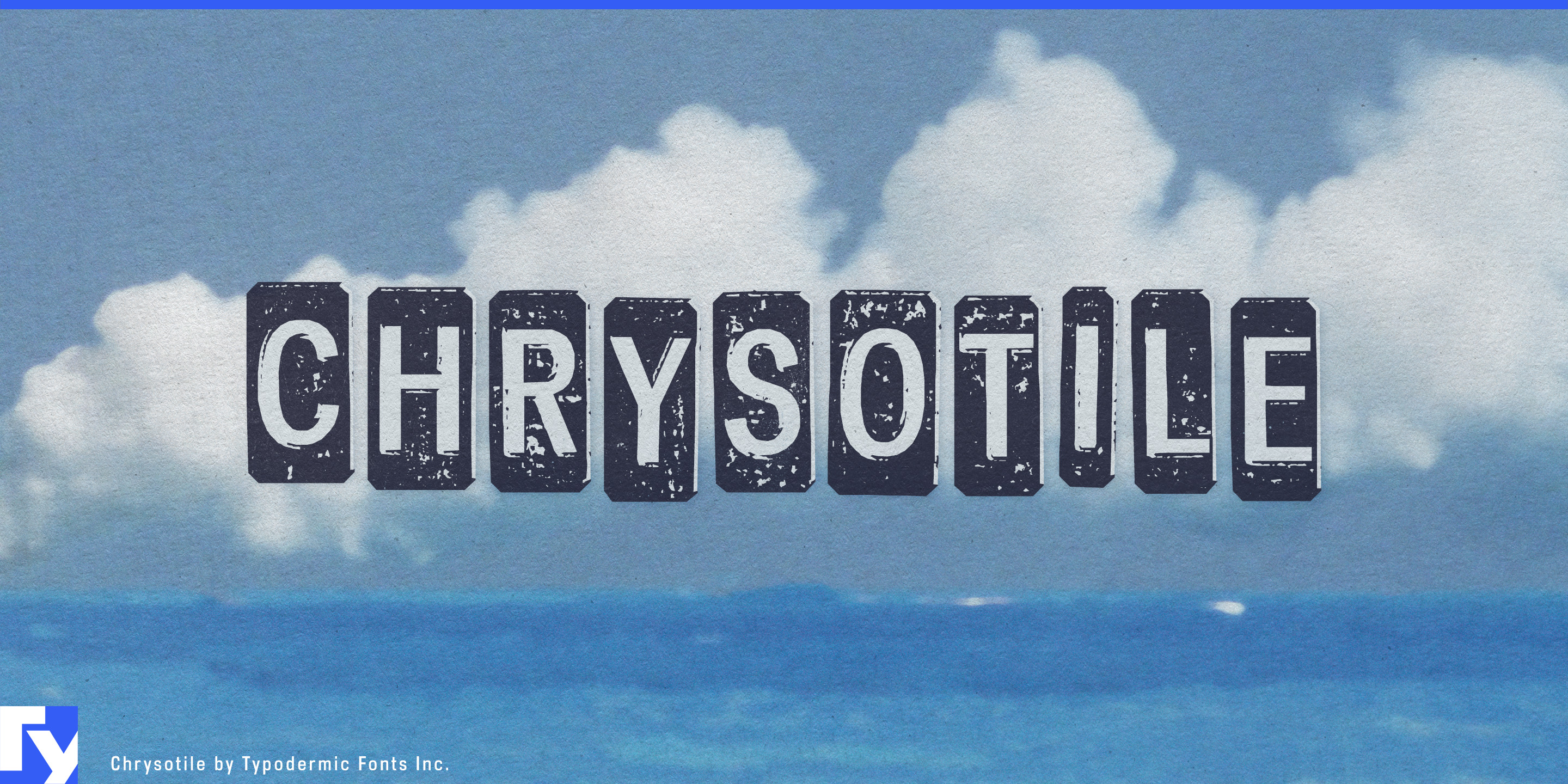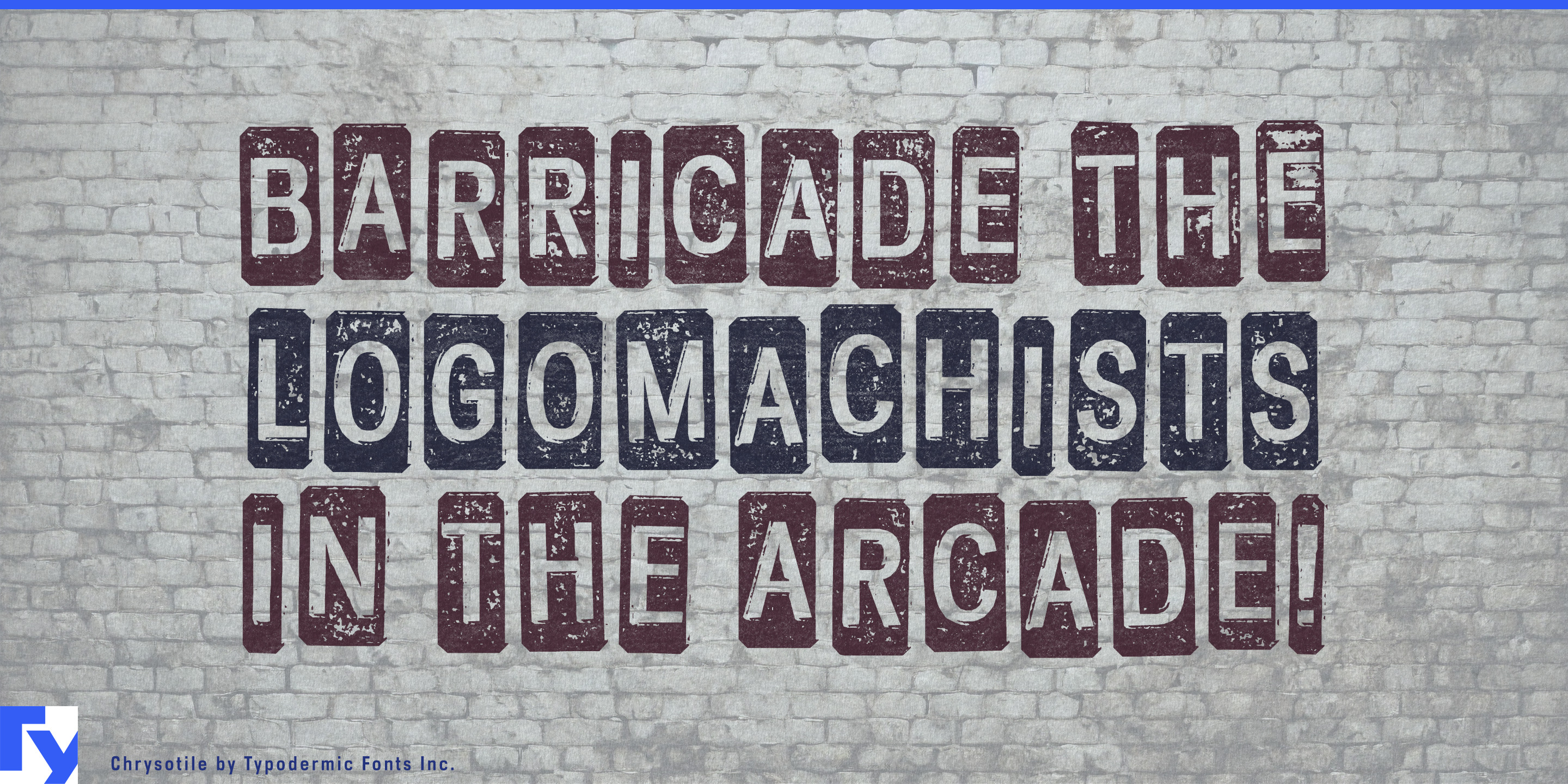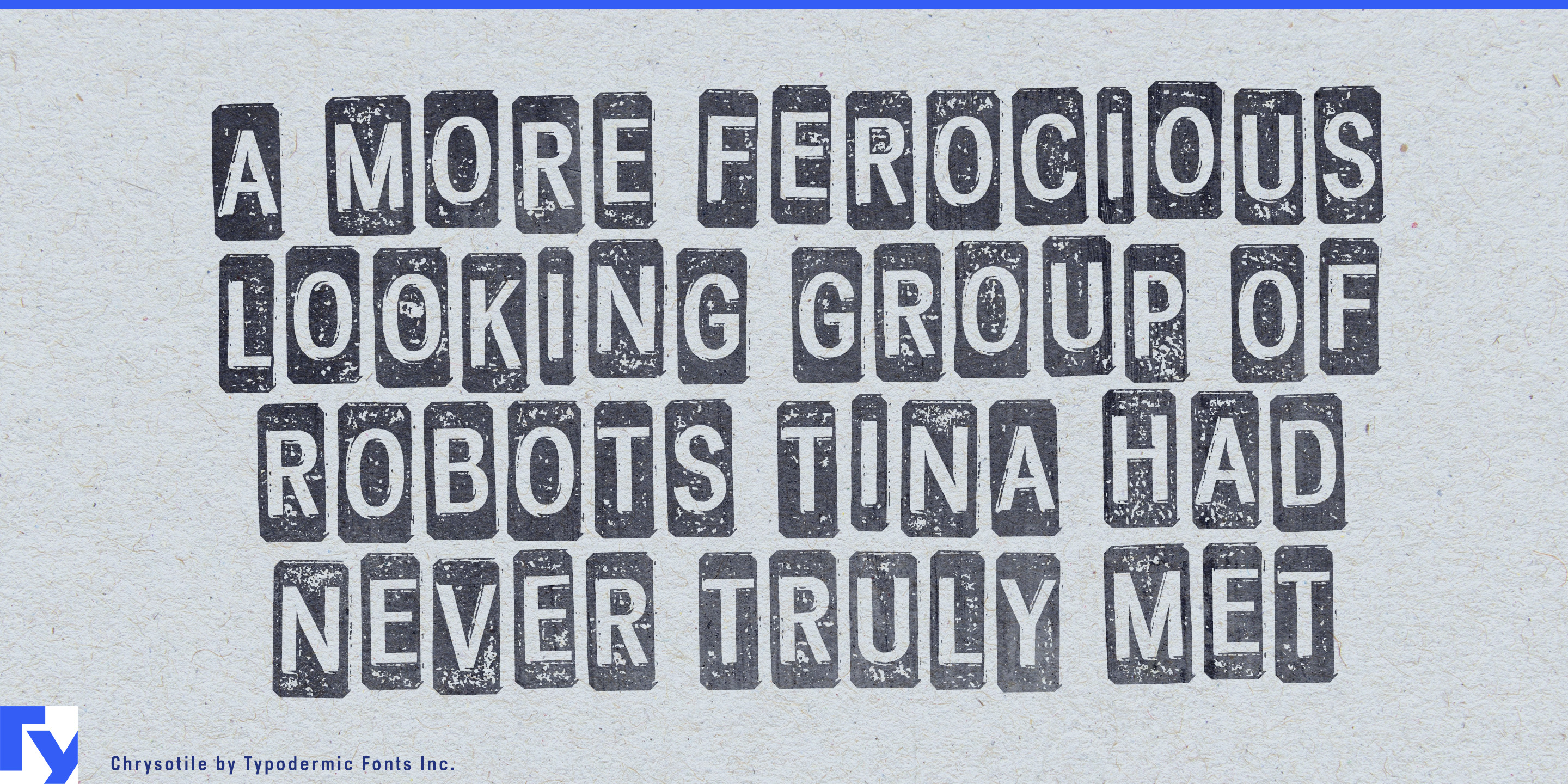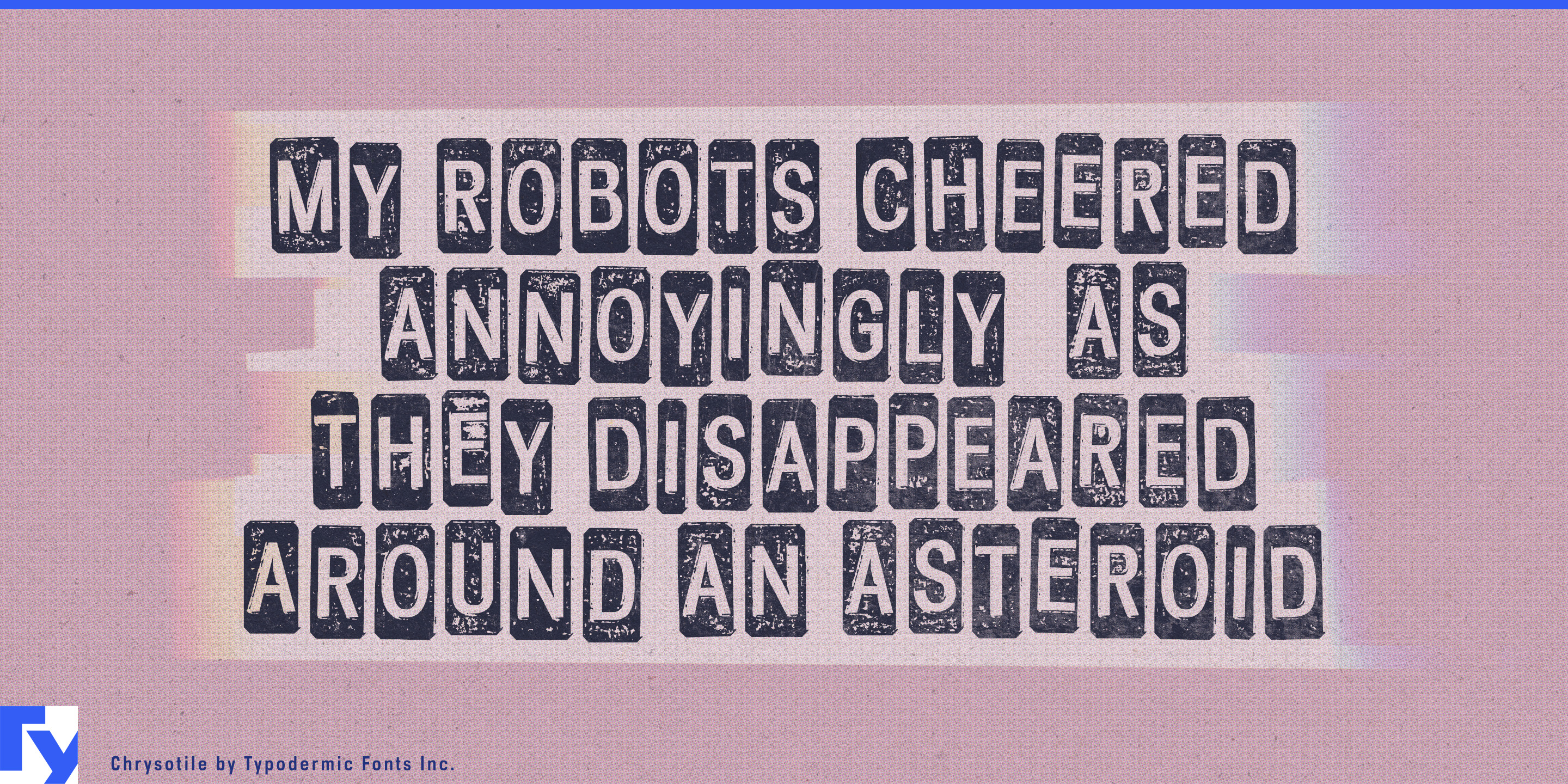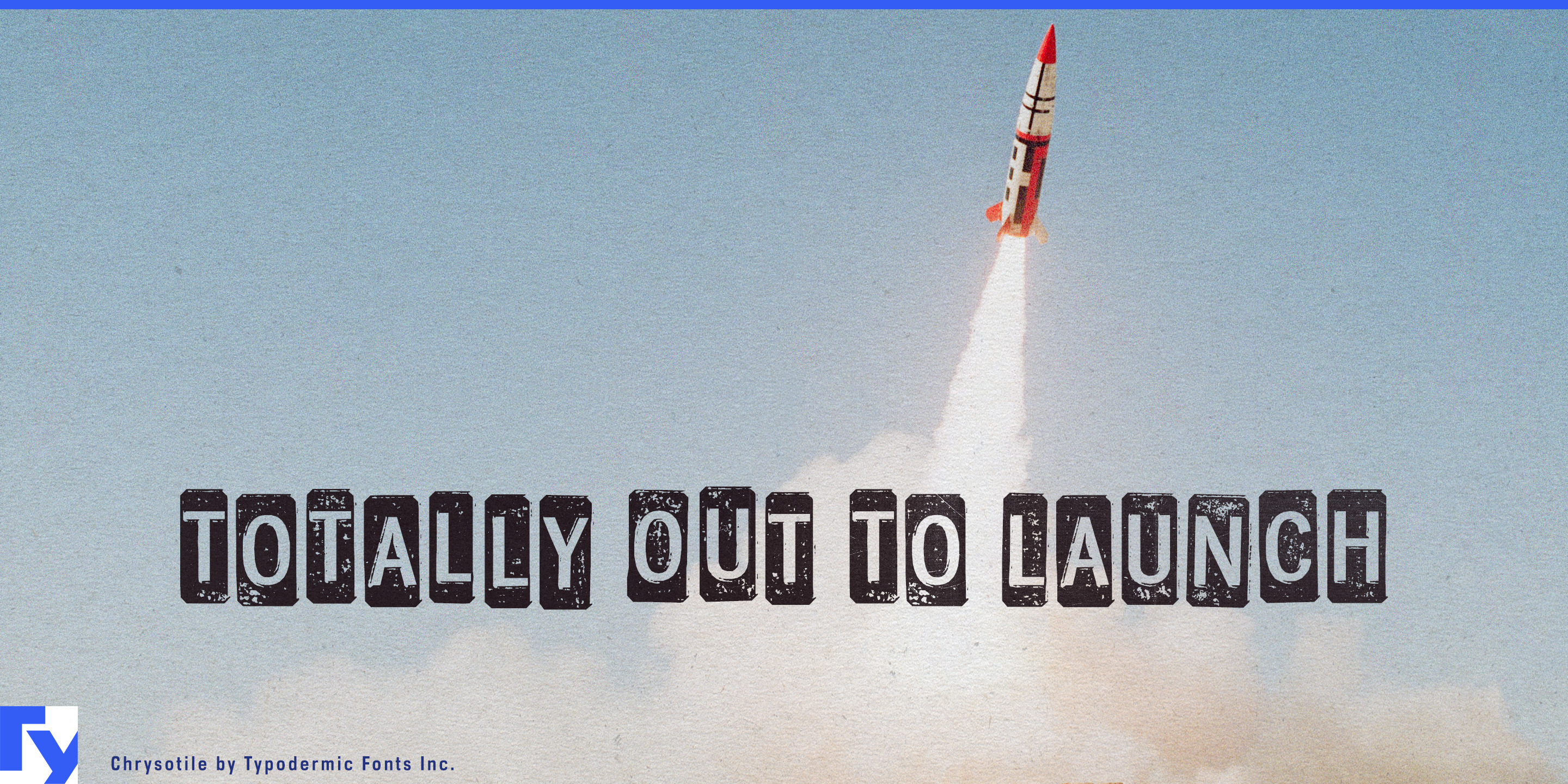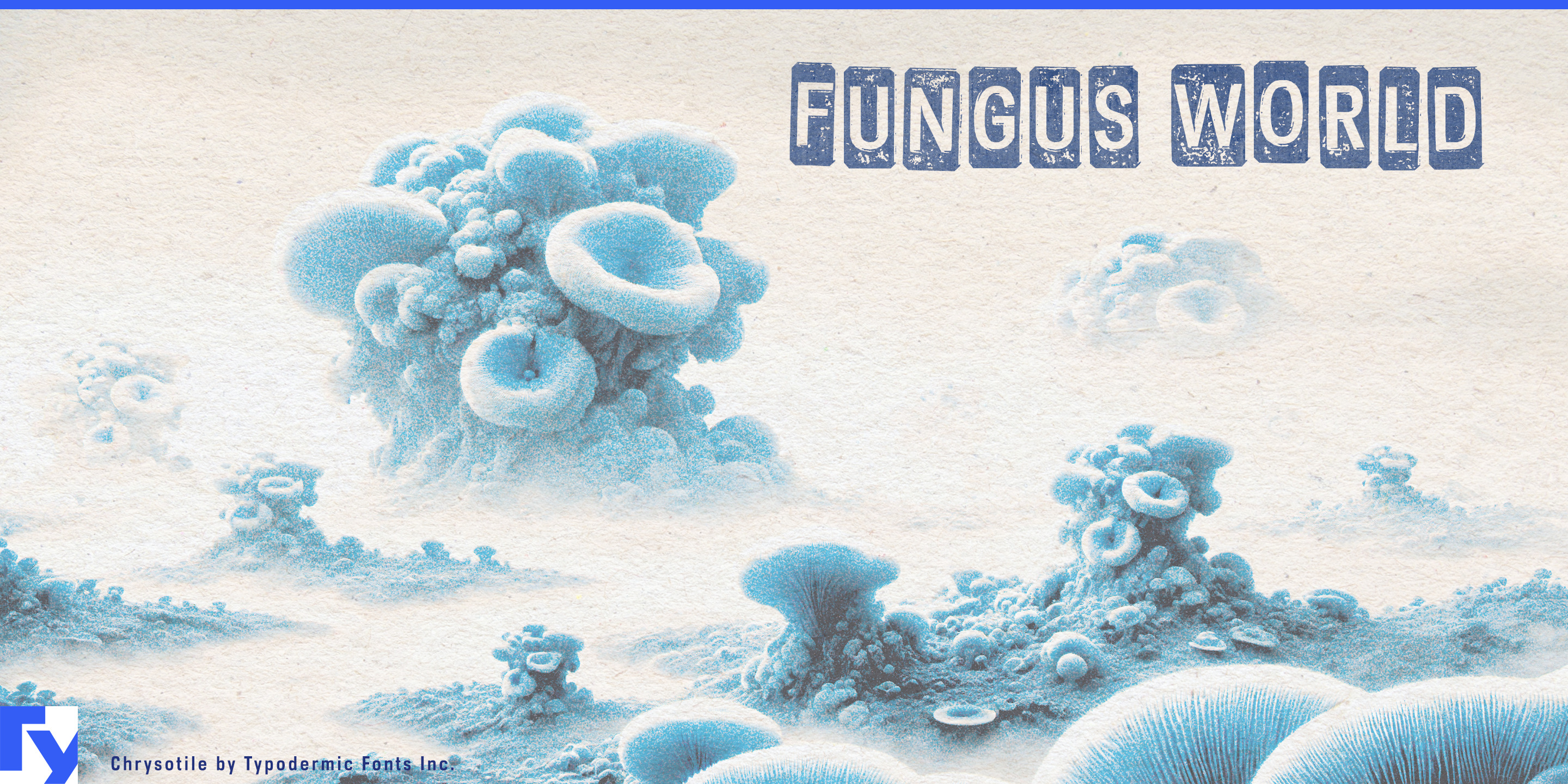
Chrysotile
Distressed lettering is easy to make look ruined. It is harder to make it look like something that has been repaired, maintained and kept in service. Vehicle restoration shops, fabrication businesses and rebuild programs often need exactly that distinction: typography with scars and material history, but without the abandoned-factory or military clichés that dominate industrial display fonts. Chrysotile turns each condensed capital into a battered metal tile, with chamfered edges and an oxidized, scratched surface that feels closer to workshop hardware than clean type with a distress filter applied afterward.
Classic-car restoration garages, restomod builders, vintage truck specialists, custom motorcycle shops and 4×4 fabricators can use Chrysotile for project names, garage fascias, workshop bay markers, parts cartons and large headings over build photography. Short milestones such as FRAME REPAIR, ENGINE SWAP, FIRST START and ROAD TEST fit naturally because the lettering looks as though it belongs on the equipment.
EV conversions provide another useful setting. When older cars, vans and utility vehicles receive electric drivetrains, Chrysotile can carry the restoration side of the story while a clean technical sans handles battery information, specifications and diagrams. The contrast creates a clear hierarchy without forcing distressed typography through every layer of the project.
Chrysotile also suits television and streaming programs about barn finds, scrapyard rescues, custom builds and heavy-equipment restoration. It can continue beyond the title into episode graphics, project-vehicle names, workshop locations and progress markers, where its wear suggests accumulated use rather than theatrical danger.
Repair culture gives Chrysotile a route into the early 2030s as well. Solar-powered mobility workshops, municipal repair pavilions and circular-economy hubs can combine e-bike servicing, cargo-bike maintenance, battery refurbishment, appliance repair and reclaimed parts under one roof. In that context, battered metal lettering can signify materials kept in circulation rather than things left to decay.
The same idea extends to remanufactured automotive components, refurbished industrial equipment, rust treatments, protective coatings and reclaimed hardware. Chrysotile is condensed, modular, all caps and deliberately specialized; it works best where a few words need to behave like a battered nameplate while a quieter companion face handles the details.